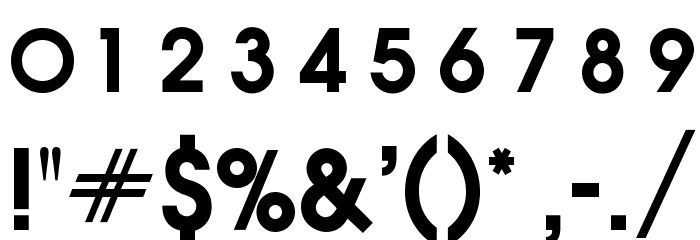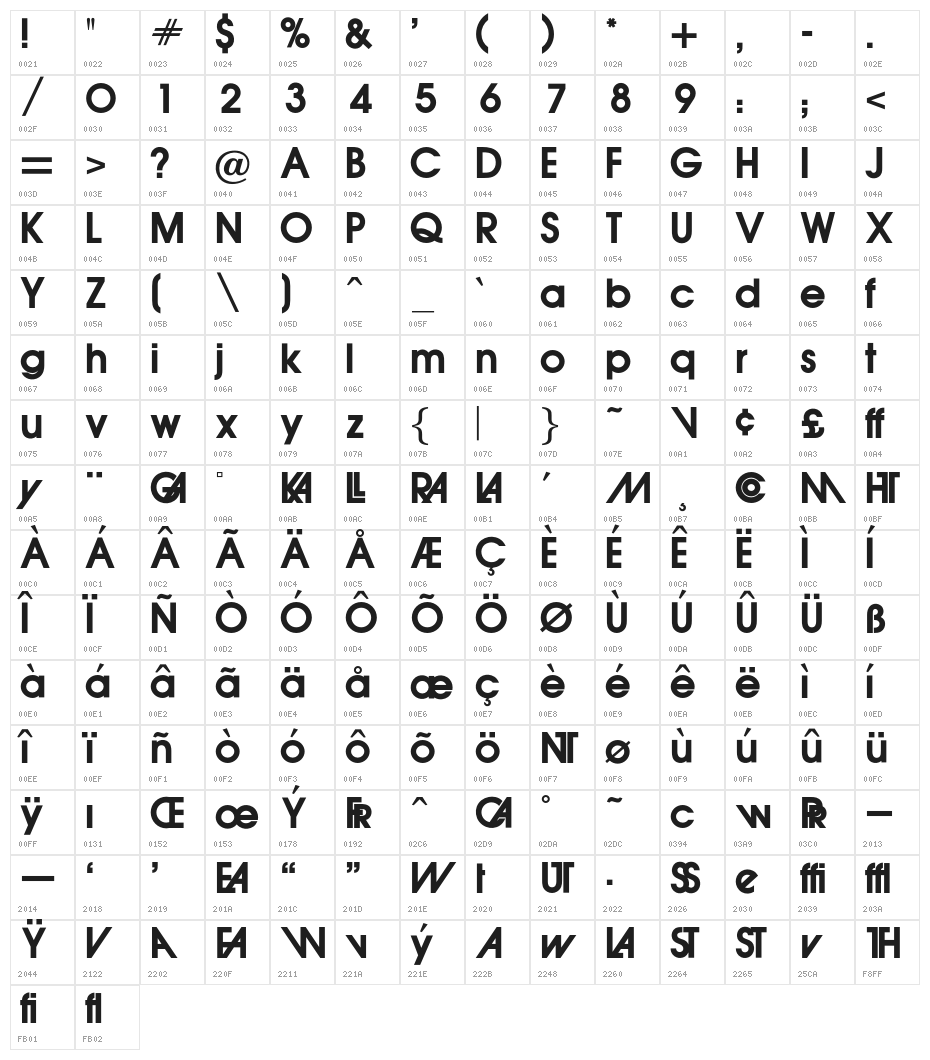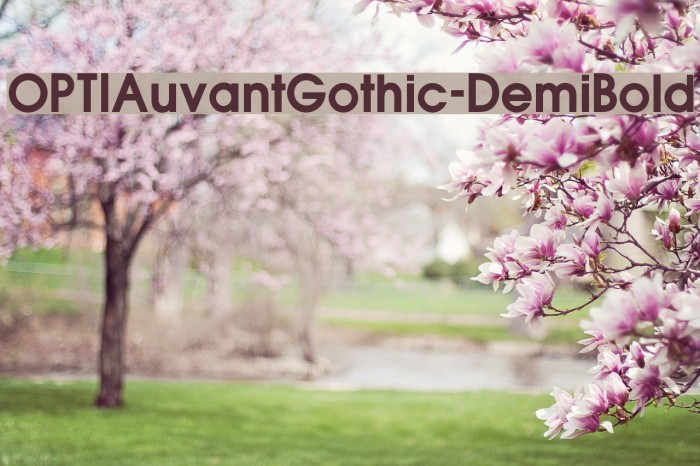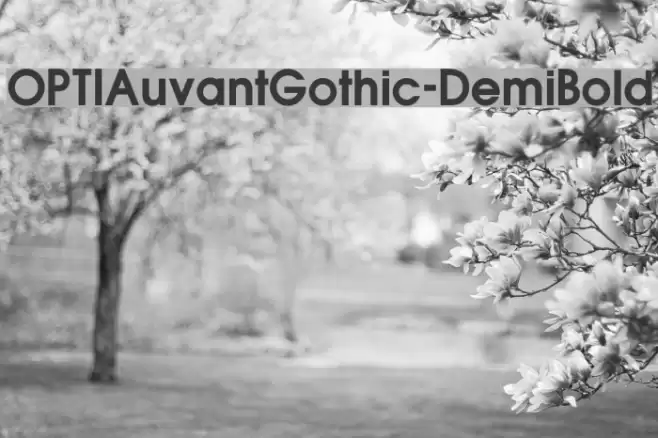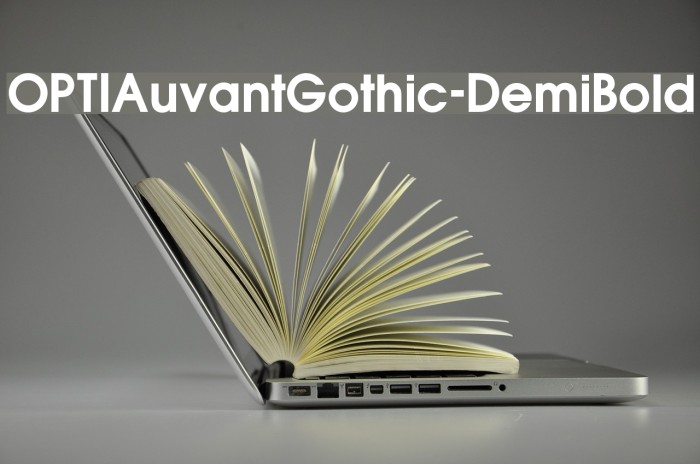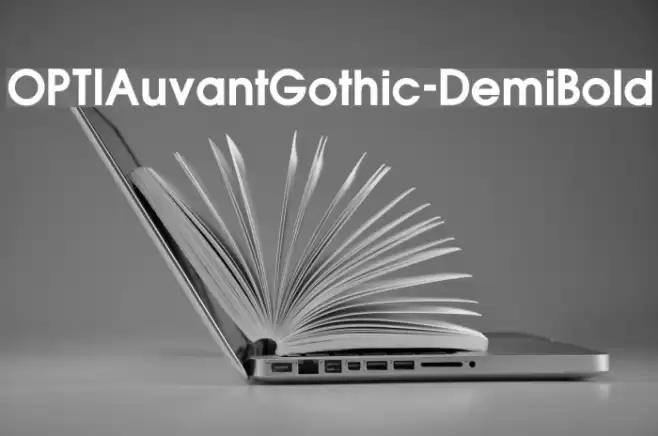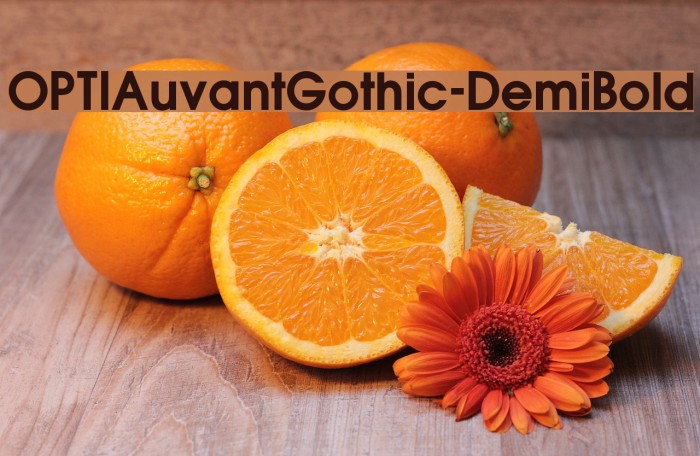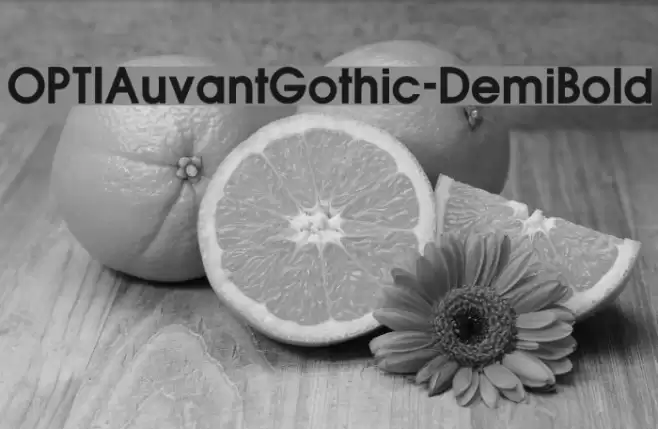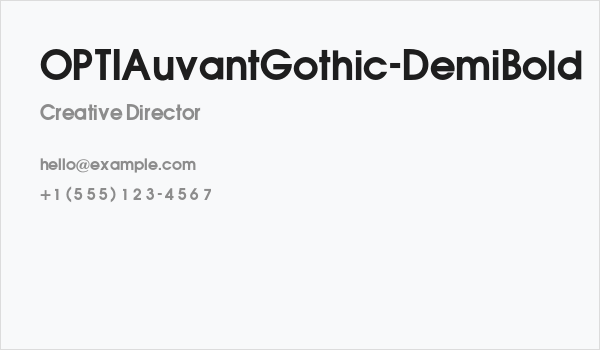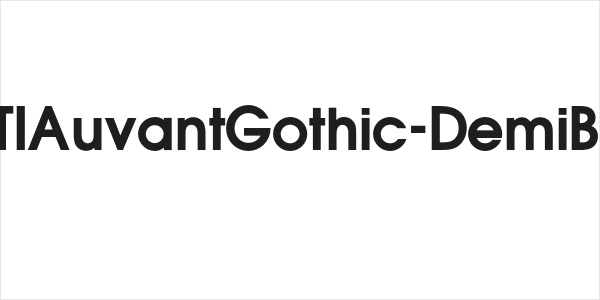
OPTIAuvantGothic-DemiBold Font
This font features a clean and modern sans-serif style with a strong geometric influence. The characters are bold and uniform, providing excellent readability. The uppercase and lowercase letters maintain a consistent weight, contributing to a cohesive appearance. The numerals are clear and distinct, matching the overall boldness of the alphabet. Special characters are well-defined, adding versatility to the font's usage. The design is straightforward yet impactful, making it suitable for a variety of applications.
| Proposed Projects | Ideal for branding, advertising, headlines, and digital content where clarity and impact are essential. |